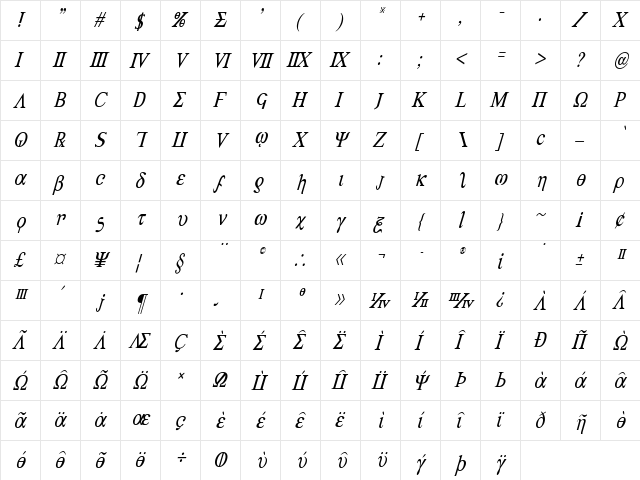
Achilles Condensed Italic Font Preview
Design Context for Achilles Condensed Italic Typeface
Achilles Condensed Italic takes a measured approach to typography — its balanced proportions and neutral character make it a reliable workhorse for both digital and print work. The slanted form adds forward momentum and visual energy. The condensed width makes it efficient for tight spaces without sacrificing legibility.
Pro Tip: Try Achilles Condensed Italic for annotation and caption copy alongside an upright companion — the contrast in angle creates a dynamic but ordered typographic system.